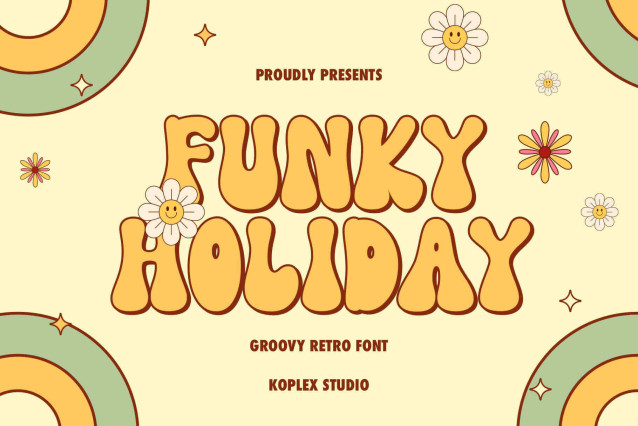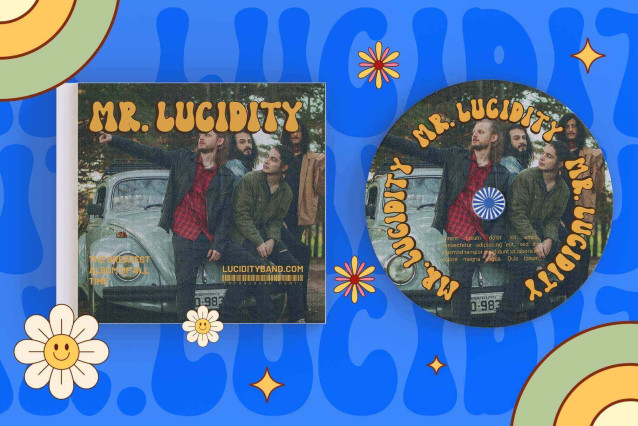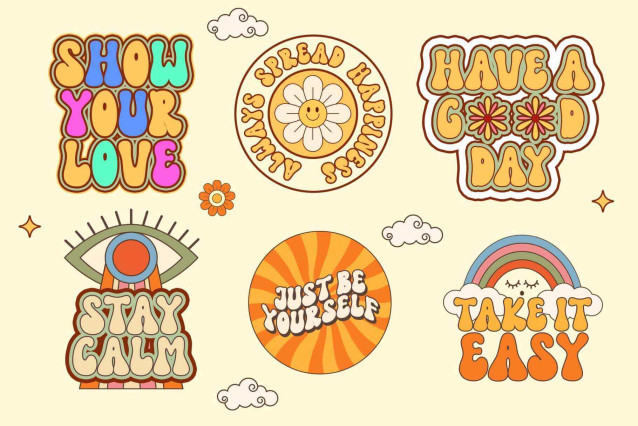
Funky Holiday Font
Funky Holiday Font is a playful and bold retro bubble font inspired by the vibrant design style of the 70s and 80s. With rounded curves, thick bubbly strokes, and eye-catching shapes, this funky typeface brings a cheerful nostalgic vibe to any project. Perfect for designers looking for bubble letter fonts, vintage typefaces, bubble gum font styles, or creative retro fonts that stand out with personality.
Ideal for logos, posters, apparel, packaging, social media graphics, and branding projects, this groovy retro font blends nostalgic charm with modern creativity. Its expressive bubble letter alphabet and vintage-inspired style make it a strong choice for cute, fun, and visually striking designs. Add Funky Holiday Font to your collection and give your work a bright, lively retro touch that captures attention instantly.